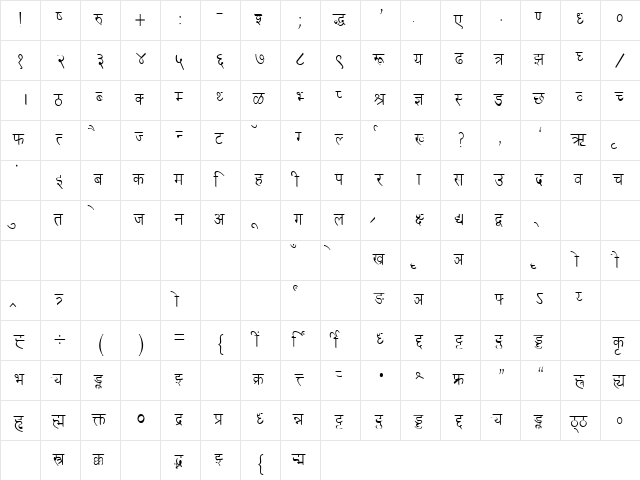
DevLys 030 Thin Normal Font Preview
DevLys 030 Thin Normal
Design Context for DevLys 030 Thin Typeface
DevLys 030 Thin is a composed and adaptable typeface that performs quietly and consistently across a wide range of design contexts. The delicate stroke weight brings airiness and refinement to layouts.